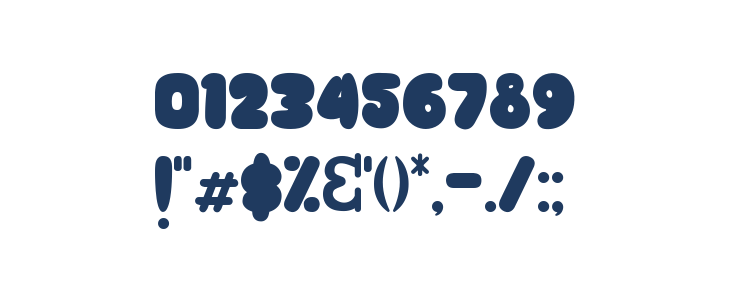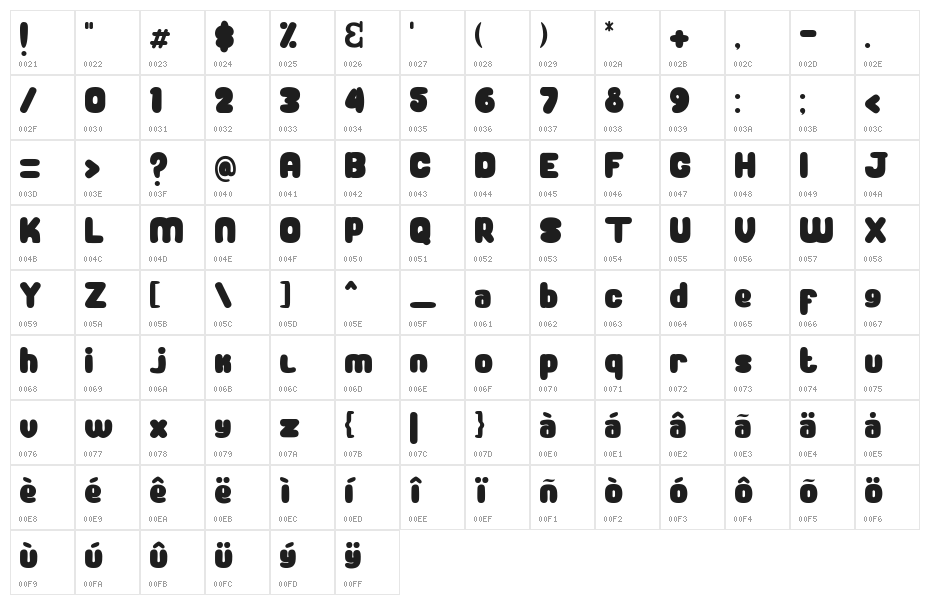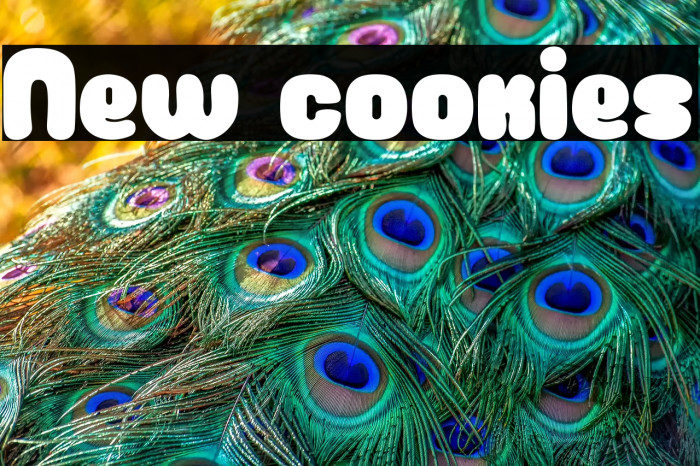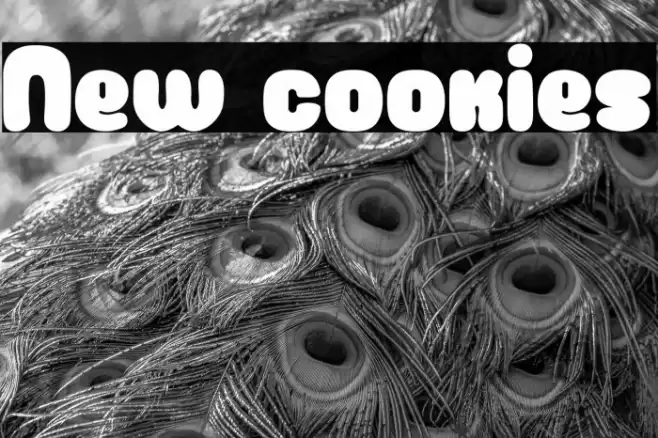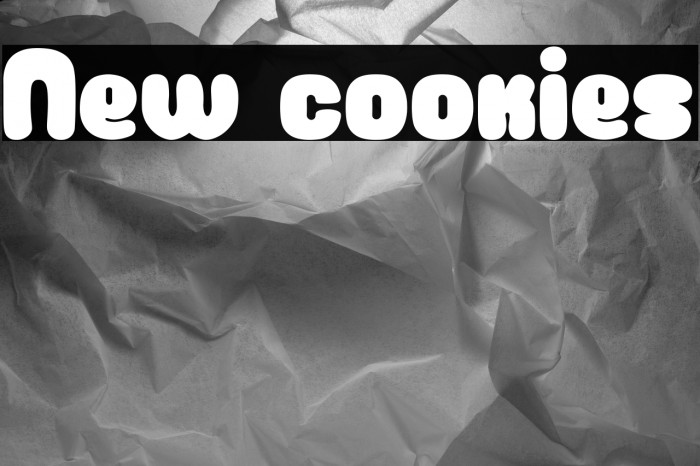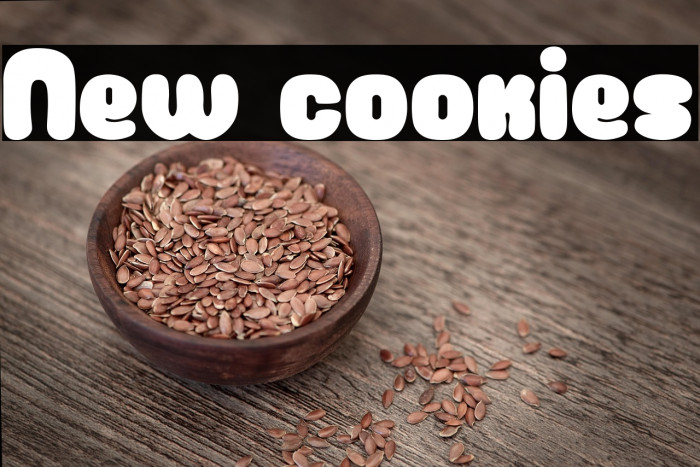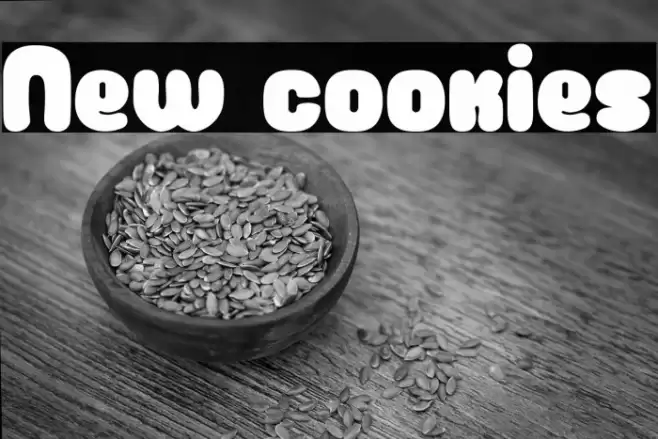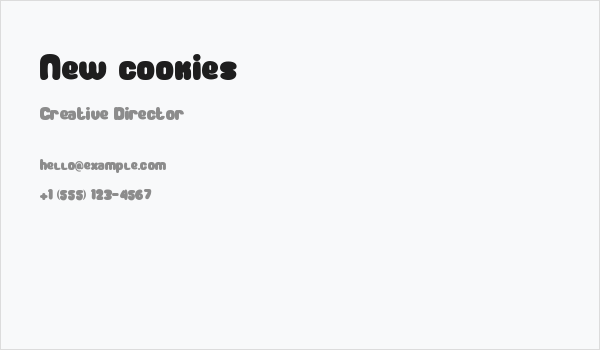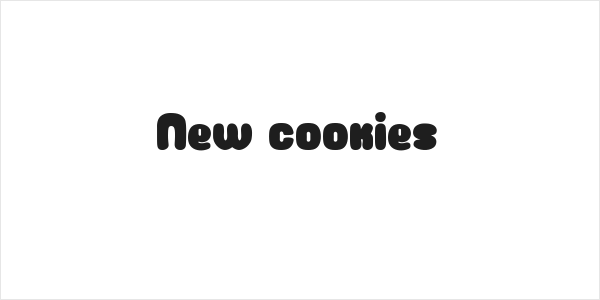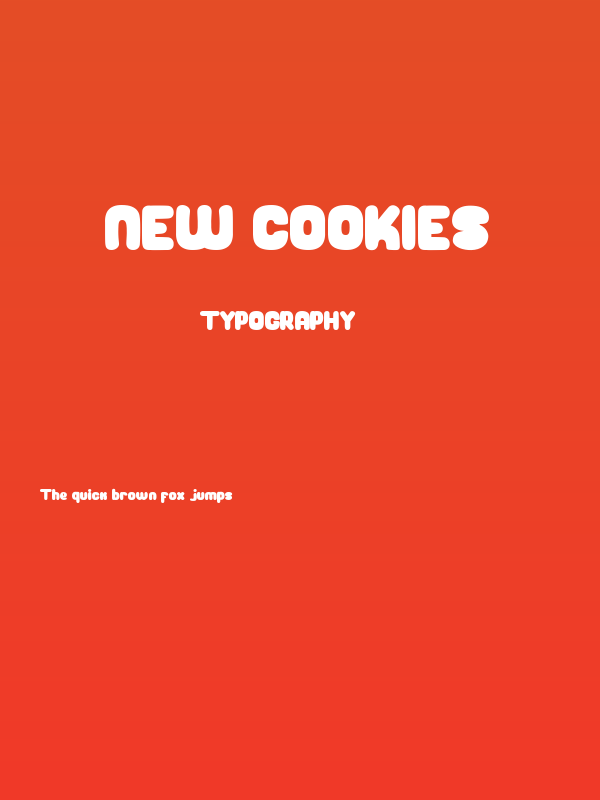
New cookies Font
New cookies Description
This playful and bold font features thick, rounded characters that exude a sense of fun and whimsy. The letters are uniformly wide, with a consistent stroke thickness that gives them a strong, cohesive appearance. The rounded edges and bubbly forms make it ideal for projects that require a friendly and approachable feel. The numerals and special characters maintain the same playful style, ensuring a harmonious look across all text elements. This font is perfect for designs that aim to capture attention with its unique and lively character.